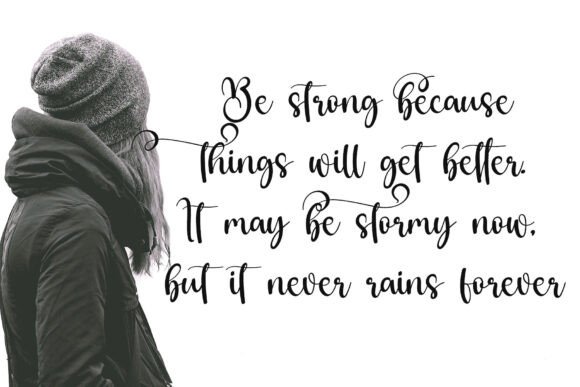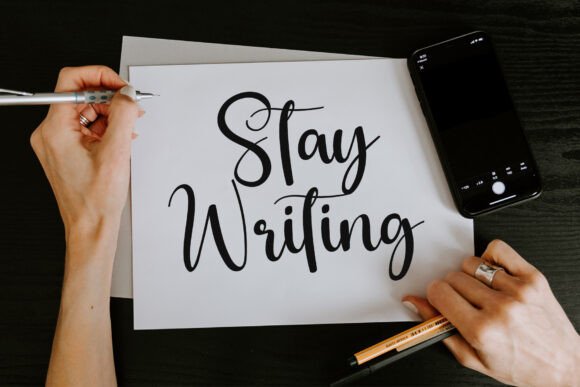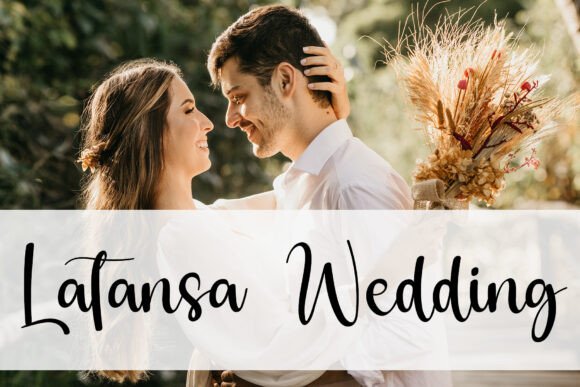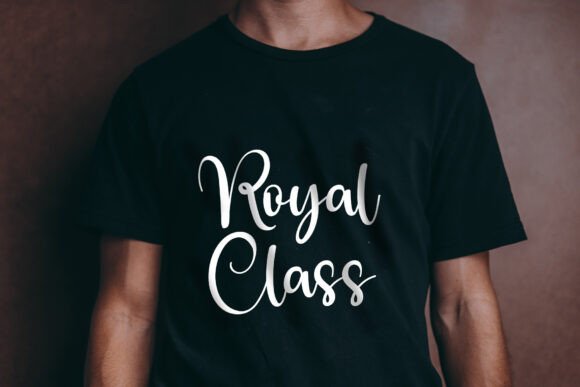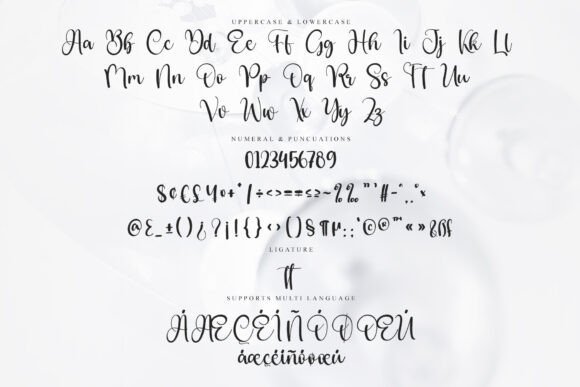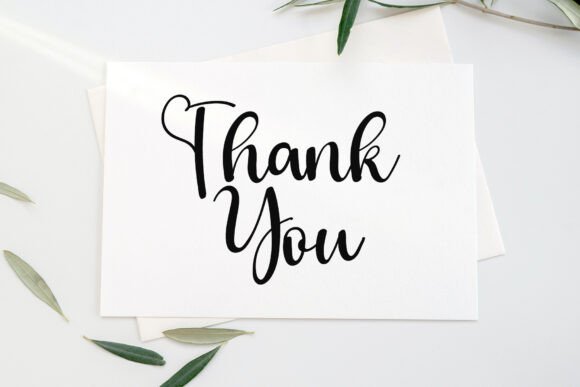
Cinematic Font: Elevate Your Designs with a Touch of Elegance and Whimsy
In the world of design, fonts play a pivotal role in conveying the message and aesthetic of a project. Among the myriad of font styles available, Cinematic Font stands out for its unique blend of sweetness, cursive elegance, and handwritten charm. This gentle font is not just a typographic choice; it’s an experience that can transform your designs, making them more engaging, joyful, and romantic.
The Essence of Cinematic Font
Cinematic is more than just a font; it’s a design element that can elevate your projects to new heights of sophistication and charm. Described as a sweet and cursive handwritten font, Cinematic embodies a sense of elegance and casualness simultaneously. It’s versatile, making it suitable for a wide range of design ideas, from branding and logos to wedding designs, greeting cards, fashion lookbooks, and marketing promotions.
One of the key advantages of Cinematic Font is its incredible versatility. Whether you’re working on a project that requires a touch of sophistication or a dash of whimsy, this font fits the bill perfectly. Here are some areas where Cinematic truly shines:
- Branding and Logo Design: Create memorable brand identities with a font that exudes both elegance and approachability.
- Wedding and Event Design: Add a romantic touch to wedding invitations, programs, and event branding with its beautiful cursive strokes.
- Greeting Cards: Make your greeting cards stand out with a font that conveys warmth and sincerity.
- Fashion and Lookbook: Elevate your fashion designs and lookbooks with a sophisticated yet casual aesthetic.
- Marketing and Promotion: Use Cinematic to add an element of luxury and charm to your marketing materials, making them more engaging to your audience.
Why Choose Cinematic Font?
Choosing Cinematic Font for your design projects comes with numerous benefits:
- Elegant yet Casual: It strikes the perfect balance between looking fancy and elegant while still being casual and approachable.
- Emotional Connection: The handwritten nature of Cinematic creates an emotional connection with the reader, making your designs more impactful.
- Readability: Despite its cursive nature, Cinematic offers excellent readability, ensuring your message is conveyed clearly and effectively.
- Uniqueness: Stand out from the crowd with a font that is both distinctive and captivating.
Tips for Using Cinematic Font Effectively
To maximize the potential of Cinematic Font in your designs, consider the following tips:
- Pair with Complementary Fonts: Combine Cinematic with sans-serif fonts for contrast and visual interest.
- Adjust Size and Color: Experiment with different sizes and colors to emphasize certain parts of your text.
- Use in Combination with Images: The elegance of Cinematic can be further enhanced when used alongside beautiful imagery.
Cinematic Font is a powerful design tool that can add a touch of elegance, whimsy, and romance to your projects. Its versatility, readability, and unique charm make it an excellent choice for designers and crafters looking to elevate their designs. Whether you’re working on branding, wedding designs, greeting cards, or marketing materials, Cinematic is sure to leave a lasting impression on your audience. So, embrace the beauty of Cinematic Font and let your designs speak with elegance and heart.